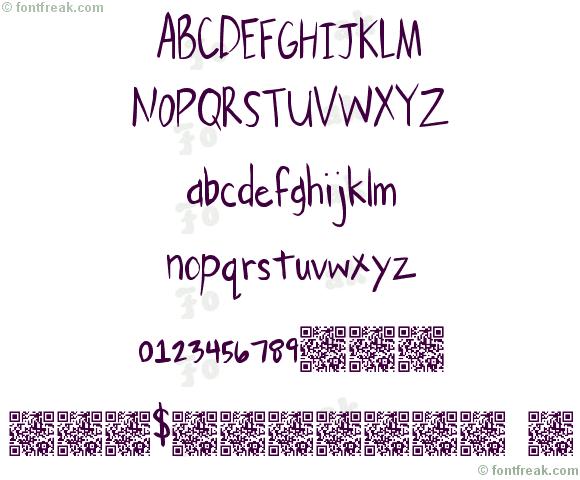
CleanEasy
The CleanEasy font, created by Xerographer Fonts in 2013, is a delightful handwritten typeface that exudes a casual yet polished vibe. This font belongs to the script category, featuring smooth, flowing letterforms that are both approachable and stylish. With its moderate stroke weight and subtle contrast, CleanEasy captures the essence of natural handwriting, making it perfect for various design projects.
Visually, CleanEasy showcases a balanced design with generous spacing between letters, contributing to its legibility and ease of use. The slightly rounded edges of the characters lend a friendly touch, while the playful curves add an element of charm. Its simplicity is one of its most appealing attributes, ensuring that it remains versatile across different applications without overwhelming the viewer.
This font is well-suited for a range of use cases, including wedding invitations that call for a personal touch, cozy café menus that invite customers to indulge, and social media graphics that aim to engage audiences. Additionally, CleanEasy can effectively enhance branding materials for small businesses, providing a warm and welcoming feel that resonates with customers. Its versatility makes it an excellent choice for graphic designers and content creators seeking to add a handwritten flair to their projects.